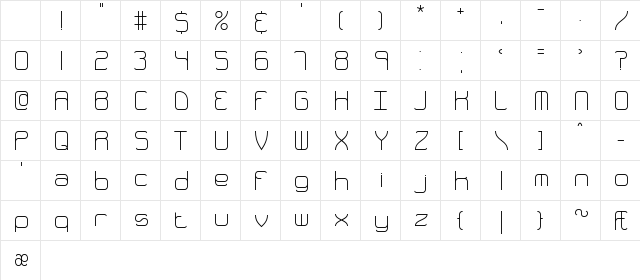
Quarterly Thin BRK is a composed and adaptable typeface that performs quietly and consistently across a wide range of design contexts. Its slender proportions lend an understated elegance to any composition.